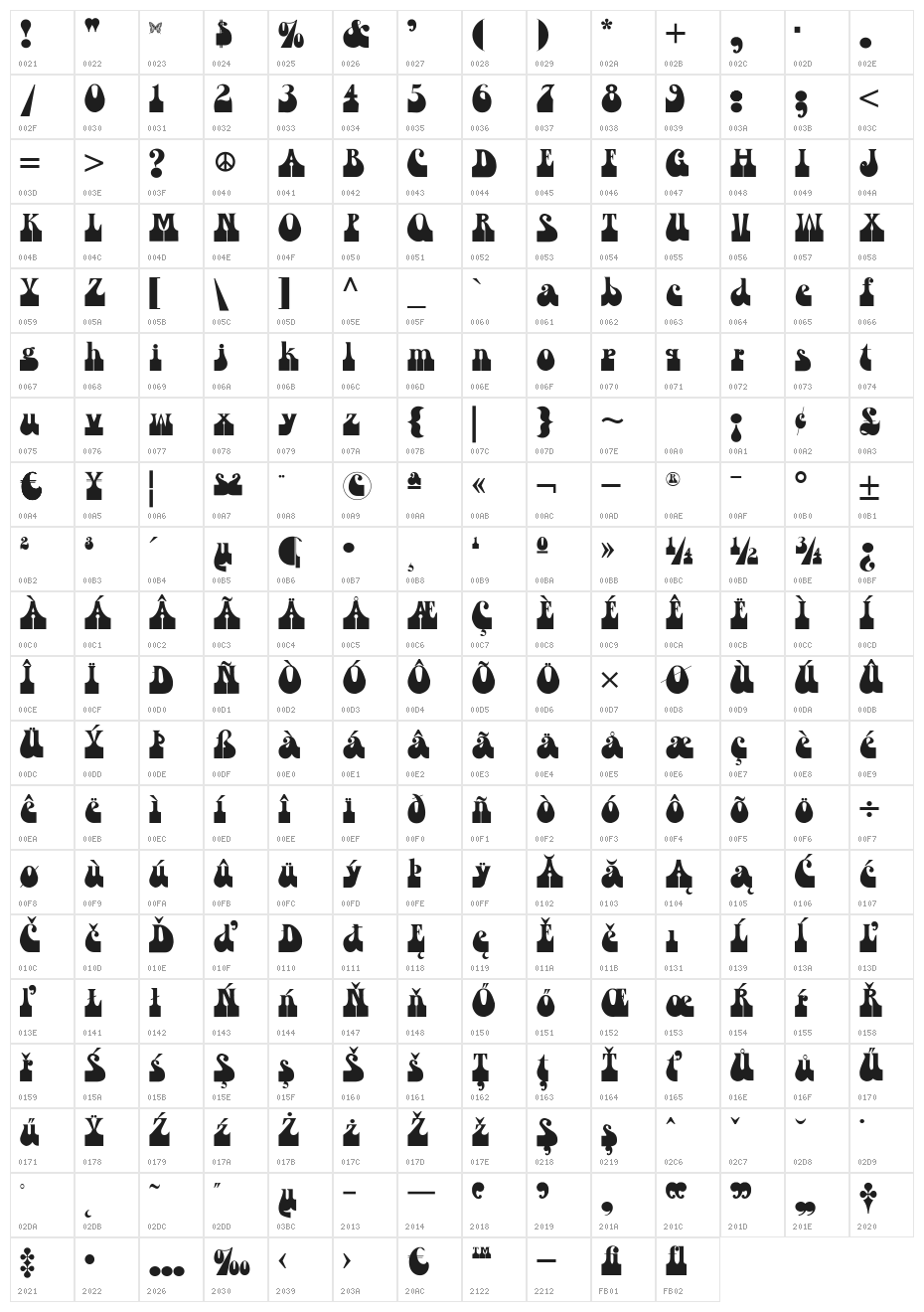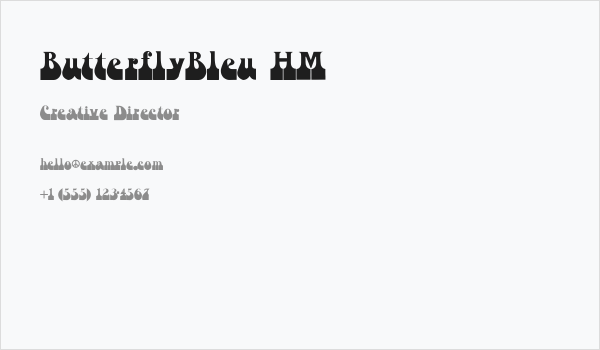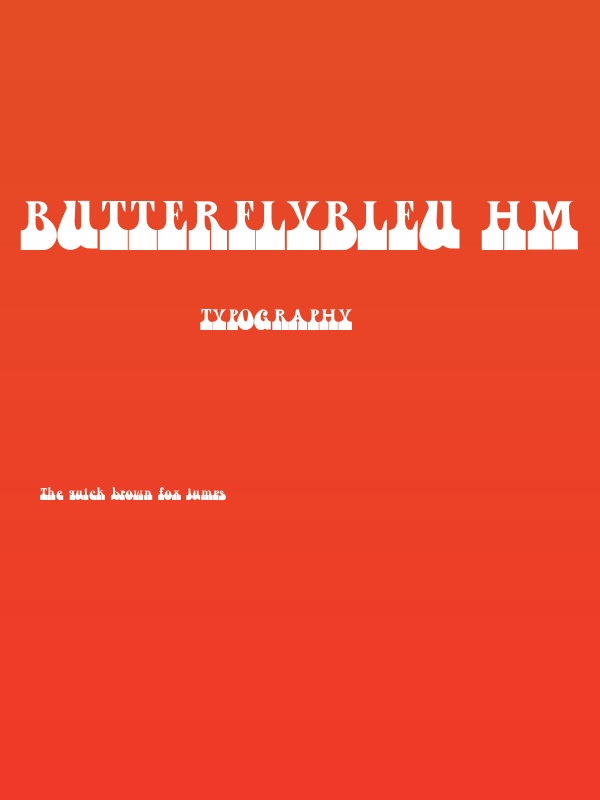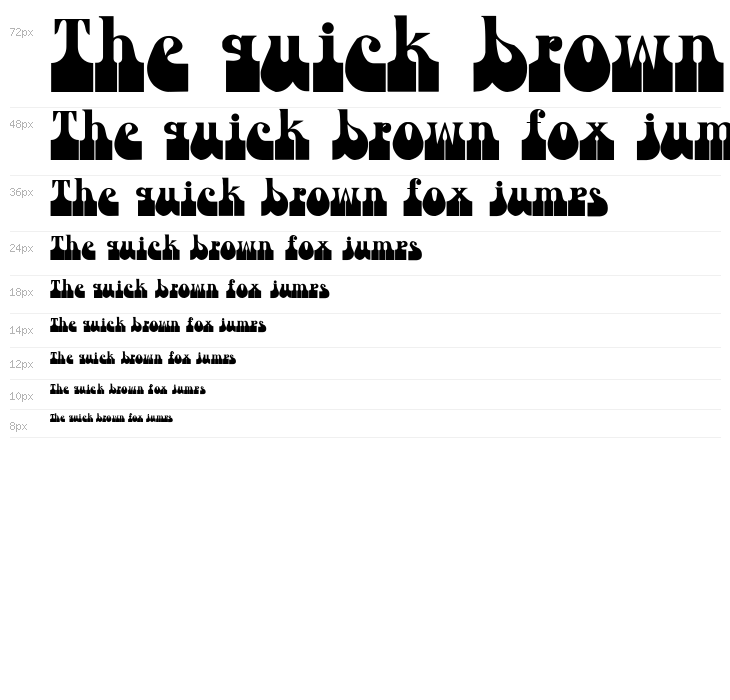
ButterflyBleu HM Font
ButterflyBleu HM Description
This font features a bold and playful design with a strong emphasis on geometric shapes and high contrast. The uppercase letters are characterized by their thick, block-like forms with rounded edges, while the lowercase letters maintain a similar style with slightly more fluidity. The numbers are equally bold, with a unique, almost whimsical appearance. Special characters are creatively integrated, adding to the font's decorative appeal. The overall style is modern and artistic, making it suitable for eye-catching designs.
| Proposed Projects | Ideal for posters, branding, logos, and any project requiring a bold, artistic touch. |